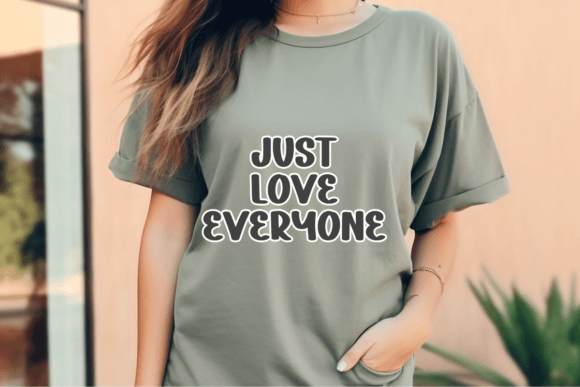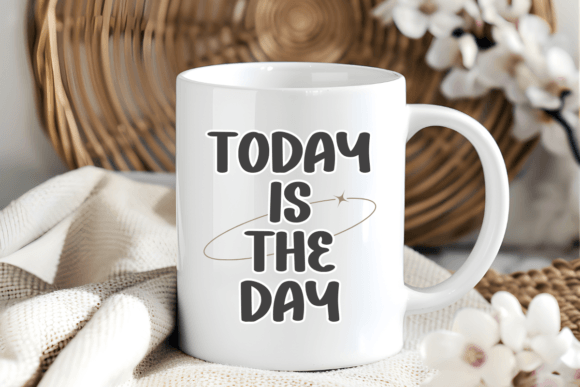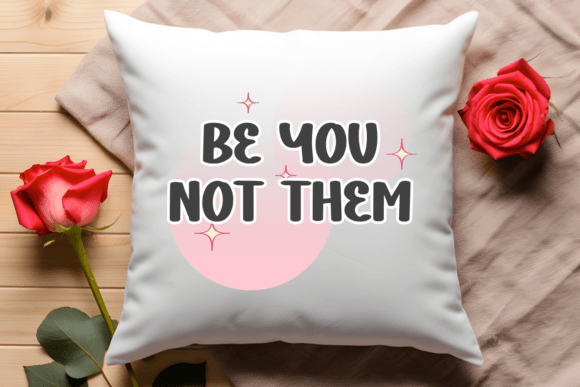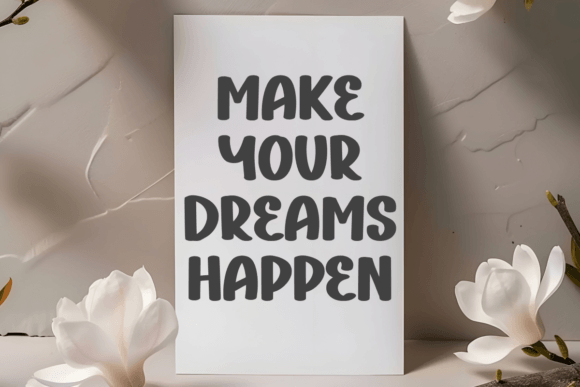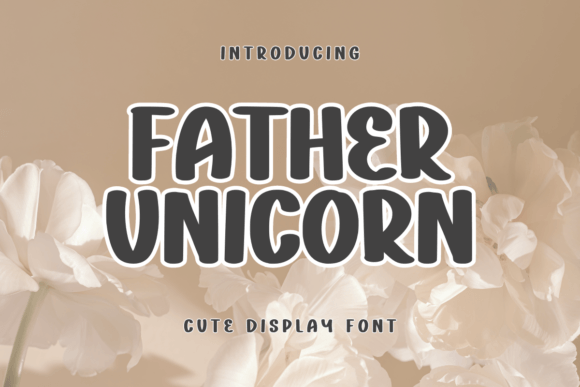
Discover the Magic of Father Unicorn Font: A Cute and Adorable Display Font
Are you tired of using the same old fonts in your designs? Look no further! Introducing Father Unicorn Font, a delightful and charming display font that’s sure to add a touch of whimsy to your creations. With its cute and fun style, this font is perfect for designers and crafters who want to make their projects stand out from the crowd.
What Makes Father Unicorn Font So Special?
Father Unicorn Font is a one-of-a-kind font that’s designed to bring a smile to your face. Its natural strokes and touches give it a unique and organic feel that’s hard to find in other fonts. Whether you’re working on a project for a children’s book, a greeting card, or a social media post, this font is sure to add a dash of personality and charm.
One of the best things about Father Unicorn Font is its versatility. It can be used for a wide range of topics and themes, from fun and playful to sweet and sentimental. The font’s cute and adorable design makes it perfect for projects that require a touch of magic and wonder.
Key Features of Father Unicorn Font
- Cute and adorable design: Father Unicorn Font is designed to be fun and playful, making it perfect for projects that require a touch of whimsy.
- Natural strokes and touches: The font’s natural strokes and touches give it a unique and organic feel that’s hard to find in other fonts.
- Versatile: Father Unicorn Font can be used for a wide range of topics and themes, from fun and playful to sweet and sentimental.
- Easy to read: Despite its playful design, Father Unicorn Font is easy to read, making it perfect for use in body text or headings.
How to Use Father Unicorn Font in Your Designs
Using Father Unicorn Font in your designs is easy! Here are a few ideas to get you started:
- Children’s books and educational materials: Father Unicorn Font is perfect for use in children’s books, educational materials, and other projects that require a fun and playful touch.
- Greeting cards and invitations: Add a touch of whimsy to your greeting cards and invitations with Father Unicorn Font.
- Social media posts: Use Father Unicorn Font to add a dash of personality to your social media posts and make them stand out from the crowd.
- Crafting and DIY projects: Father Unicorn Font is perfect for use in crafting and DIY projects, such as handmade cards, gift tags, and other paper crafts.
Tips for Getting the Most Out of Father Unicorn Font
Here are a few tips for getting the most out of Father Unicorn Font:
- Experiment with different colors and textures: Father Unicorn Font looks great in a variety of colors and textures, so don’t be afraid to experiment and find the perfect combination for your project.
- Use it in combination with other fonts: Father Unicorn Font pairs well with other fonts, so try using it in combination with a serif or sans-serif font to create visual interest.
- Don’t be afraid to get creative: Father Unicorn Font is a versatile font that can be used in a wide range of projects, so don’t be afraid to get creative and try new things!
In conclusion, Father Unicorn Font is a cute and adorable display font that’s sure to add a touch of magic to your designs. With its natural strokes and touches, versatile design, and ease of use, this font is perfect for designers and crafters who want to make their projects stand out from the crowd. So why wait? Download Father Unicorn Font today and start adding a dash of whimsy to your creations!